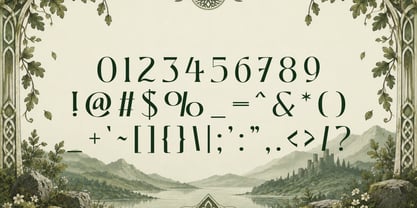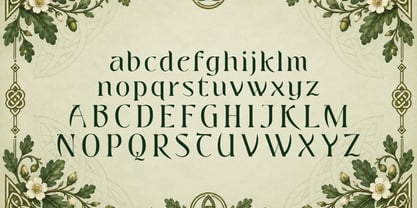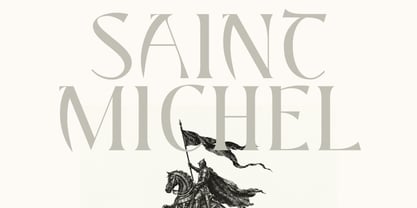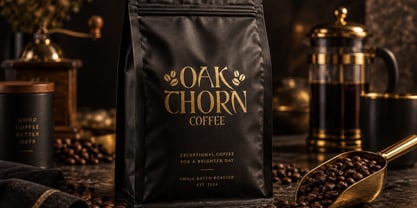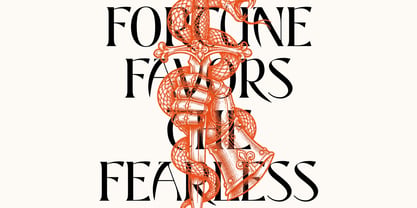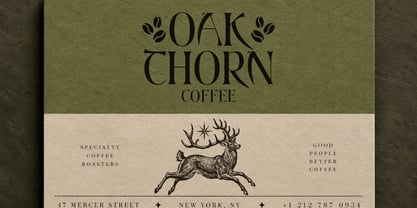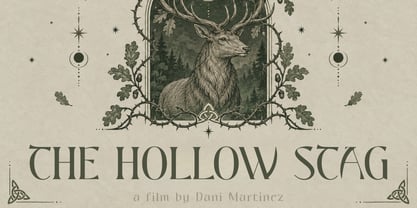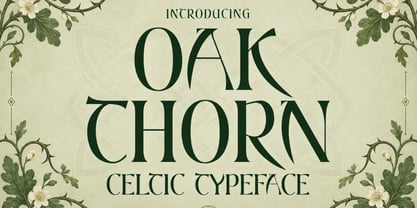
Oakthorn
Oakthorn is a bold, historically inspired display font rooted in the visual spirit of ancient Norse culture, early Celtic manuscripts, sacred texts, medieval ornamentation, and traditional insular art.
Its strong, intricate letterforms echo the craftsmanship and symbolism associated with early medieval Europe, drawing inspiration from the artistic traditions that flourished across Ireland, Scotland, Britain, and the wider Norse world from roughly the 6th and 7th centuries onward. The result is a typeface that feels powerful, ceremonial, mysterious, and deeply connected to the atmosphere of old legends and forgotten kingdoms.
Oakthorn combines the rugged strength of Viking-inspired design with the decorative rhythm of Celtic manuscript lettering. Its distinctive strokes give every word an instantly recognizable character, making it especially effective when you want typography to feel ancient without becoming difficult to use.
Perfect for fantasy branding, medieval posters, book covers, game titles, historical projects, Viking-inspired logos, Celtic artwork, fantasy maps, packaging, apparel, tattoos, album covers, invitations, merchandise, film graphics, role-playing games, and mythological themes, Oakthorn brings a sense of heritage and drama to both digital and printed work.
Whether you're building the identity of a fictional kingdom, designing artwork inspired by sagas and folklore, or simply looking for a typeface with a timeless historic presence, Oakthorn gives your text the strength of Norse tradition and the ornate soul of the Celtic world.